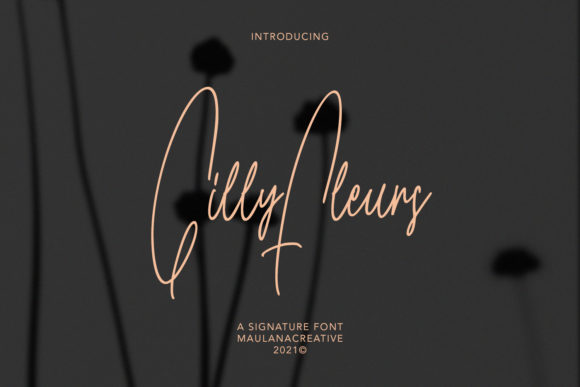
Gilly Fleurs Font: Elevate Your Designs with Luxury and Elegance
Are you looking for a font that can add a touch of luxury and sophistication to your design projects? Look no further than Gilly Fleurs, a beautiful, stylish, and neat handwritten font that is sure to impress. With its incredibly versatile style, Gilly Fleurs is perfect for designers and crafters who want to create stunning designs that stand out from the crowd.
What is Gilly Fleurs Font?
Gilly Fleurs is a modern handwritten font that is designed to add a touch of elegance and sophistication to any design project. Its beautiful, flowing script and neat lettering make it perfect for creating luxurious and high-end designs. Whether you’re working on a branding project, a wedding invitation, or a packaging design, Gilly Fleurs is the perfect choice.
Key Features of Gilly Fleurs Font
- Beautiful and stylish design: Gilly Fleurs has a unique and stylish design that is sure to impress. Its beautiful, flowing script and neat lettering make it perfect for creating luxurious and high-end designs.
- Incredibly versatile: Gilly Fleurs is an incredibly versatile font that can be used for a wide range of design projects. Whether you’re working on a branding project, a wedding invitation, or a packaging design, Gilly Fleurs is the perfect choice.
- Easy to read: Despite its elegant and sophisticated design, Gilly Fleurs is easy to read and understand. This makes it perfect for designs where you need to communicate a message clearly and effectively.
- Supports multiple languages: Gilly Fleurs supports multiple languages, making it a great choice for designers who work with clients from around the world.
How to Use Gilly Fleurs Font
Gilly Fleurs is easy to use and can be incorporated into a wide range of design projects. Here are a few ways you can use Gilly Fleurs:
- Branding projects: Use Gilly Fleurs to create stunning branding projects, including logos, business cards, and letterheads.
- Wedding invitations: Add a touch of luxury and sophistication to your wedding invitations with Gilly Fleurs.
- Packaging design: Use Gilly Fleurs to create beautiful and eye-catching packaging designs that stand out on store shelves.
- Social media graphics: Use Gilly Fleurs to create stunning social media graphics that grab attention and drive engagement.
Benefits of Using Gilly Fleurs Font
There are many benefits to using Gilly Fleurs in your design projects. Here are a few:
- Adds a touch of luxury: Gilly Fleurs adds a touch of luxury and sophistication to any design project, making it perfect for high-end brands and designers.
- Versatile: Gilly Fleurs is an incredibly versatile font that can be used for a wide range of design projects.
- Easy to read: Despite its elegant and sophisticated design, Gilly Fleurs is easy to read and understand.
- Time-saving: Gilly Fleurs is a pre-designed font that can save you time and effort in your design projects.
Tips for Getting the Most Out of Gilly Fleurs Font
Here are a few tips for getting the most out of Gilly Fleurs:
- Use it sparingly: While Gilly Fleurs is a beautiful font, it can be overwhelming if used too much. Use it sparingly to add a touch of luxury and sophistication to your designs.
- Pair it with other fonts: Gilly Fleurs can be paired with other fonts to create stunning and unique designs.
- Experiment with different colors: Gilly Fleurs can be used with a wide range of colors to create different effects and moods.
Gilly Fleurs is a beautiful, stylish, and neat handwritten font that is perfect for designers and crafters who want to add a touch of luxury and sophistication to their design projects. With its incredibly versatile style and easy-to-read design, Gilly Fleurs is the perfect choice for a wide range of design projects. Whether you’re working on a branding project, a wedding invitation, or a packaging design, Gilly Fleurs is sure to impress.